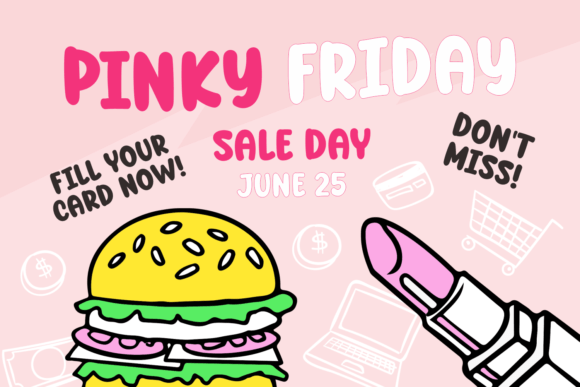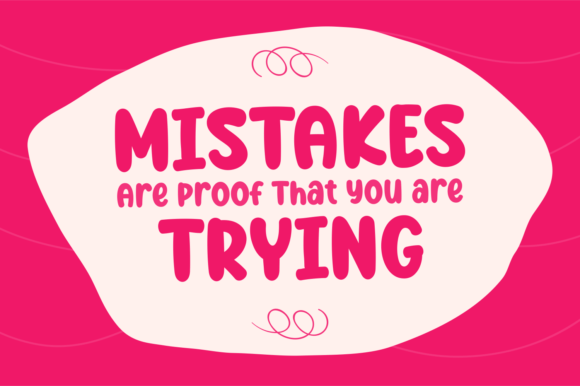
Introduction to Pink Gummy Font
As a designer, have you ever found yourself stuck in a creative rut, searching for that perfect font to elevate your project and make it truly pop? I know I have. Remember the thrill of discovering a new high-quality design resource that not only adds a touch of personality to your work but also saves you precious time in the long run? For me, that moment came when I stumbled upon the Pink Gummy Font, a free download that has since become a go-to for all my creative projects.
What makes the Pink Gummy Font so special is its ability to add a playful, whimsical touch to even the most mundane designs. With its transparent background and endearingly cute aesthetic, this font is a dream to use, whether you’re creating a lively greeting card or a vibrant poster. Its versatility is what makes it a valuable asset for designers of all levels, and I’m excited to share its charms with you in this article.
Key Features of Pink Gummy Font
- Includes a range of characters, including uppercase and lowercase letters, numbers, and symbols
- Designed with a playful, whimsical feel, perfect for adding a touch of fun to your design
Honest Review: Pink Gummy Font
I recently stumbled upon the Pink Gummy Font, and I must say it’s a delightful addition to my design resource library. This free download has been a game-changer for my creative projects, and I’m excited to share my thoughts on it.
- High-quality design: The Pink Gummy Font boasts a crisp, modern aesthetic that’s perfect for a variety of creative projects.
- Transparent background: This feature makes it easy to layer the font over different backgrounds, giving me endless design possibilities.
- Limited character set: While the font is great for headings and titles, it’s not ideal for large blocks of text.
- No bold or italic options: This can make it difficult to add emphasis to certain words or phrases.
Overall, I’m impressed with the Pink Gummy Font. Its modern design and transparent background make it a valuable addition to any design resource library. While it has some limitations, I think it’s well worth downloading for any creative project.
Tips for Getting the Most Out of Pink Gummy Font
To get the most out of the Pink Gummy Font, use it on a transparent background to create a fun and eye-catching design. You can also combine it with other fonts and design elements to create a unique look.
The Pink Gummy Font is perfect for creative projects such as social media graphics, party invitations, and children’s book illustrations. Its fun and playful design makes it ideal for projects that require a lighthearted and whimsical touch.
Alternatives to Pink Gummy Font
Gummy Bear Font
Gummy Bear Font is a fun, playful font perfect for creative projects that require a whimsical touch. It features a transparent background, making it ideal for use on top of images or videos. This font is available for free download and is a great resource for designers looking for a high-quality alternative to Pink Gummy Font.
When to use: This font is suitable for projects that require a lighthearted and humorous tone, such as social media graphics, children’s books, or advertising campaigns.
Comparison to Pink Gummy Font: Gummy Bear Font has a similar playful feel to Pink Gummy Font but with a more rounded and childlike appearance. It is more versatile and can be used in a wider range of creative projects.
Candy Font
Candy Font is a sweet and colorful font that is perfect for designers looking for a fun and eye-catching design resource. It features a high-quality design and is available for free download, making it a great alternative to Pink Gummy Font.
When to use: This font is suitable for projects that require a bold and attention-grabbing effect, such as food packaging, advertising campaigns, or social media graphics.
Does Pink Gummy Font have a transparent background?
Pink Gummy Font has a transparent background, making it easy to layer over images or other design elements. This feature allows for greater flexibility and creativity in your design projects.